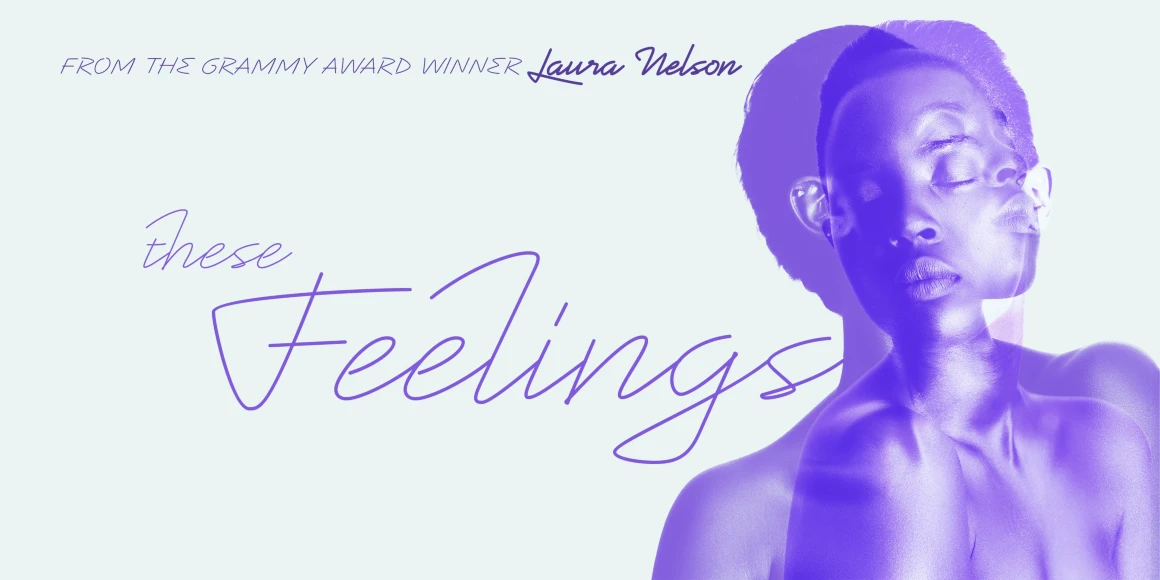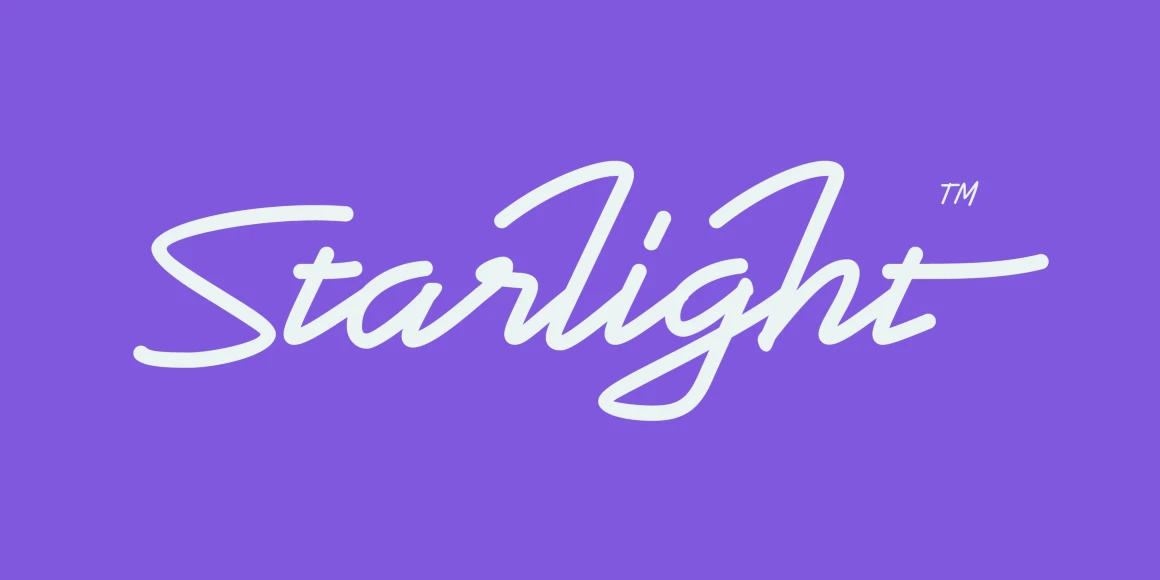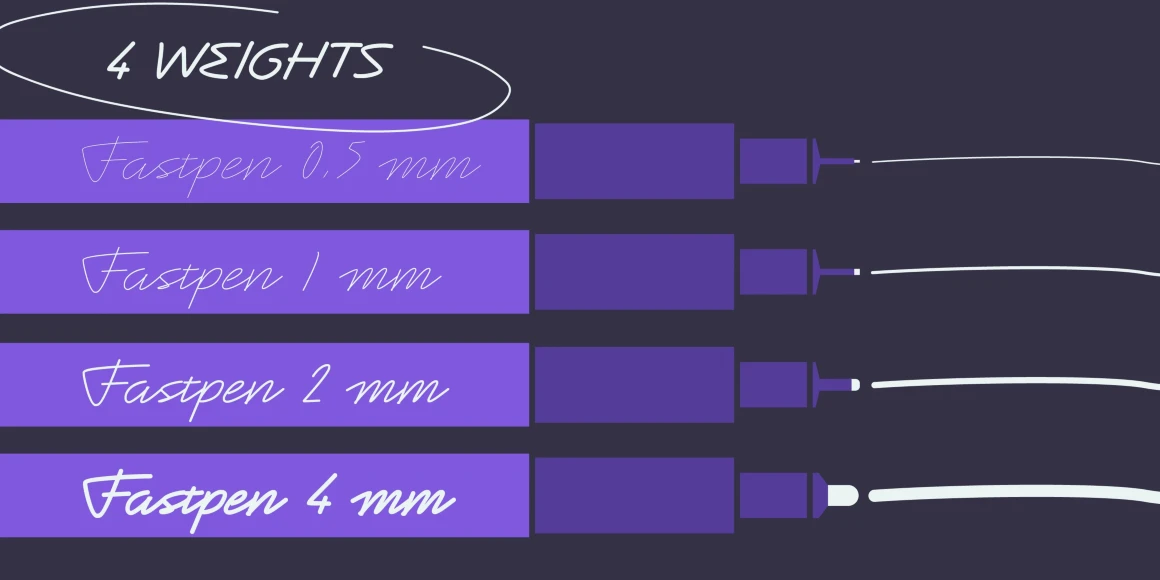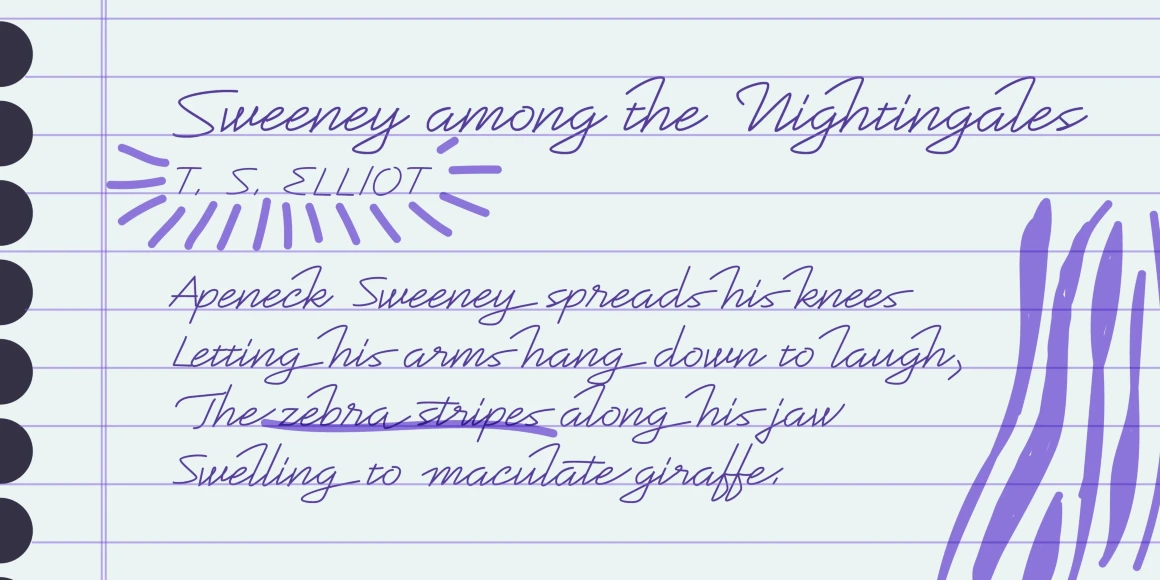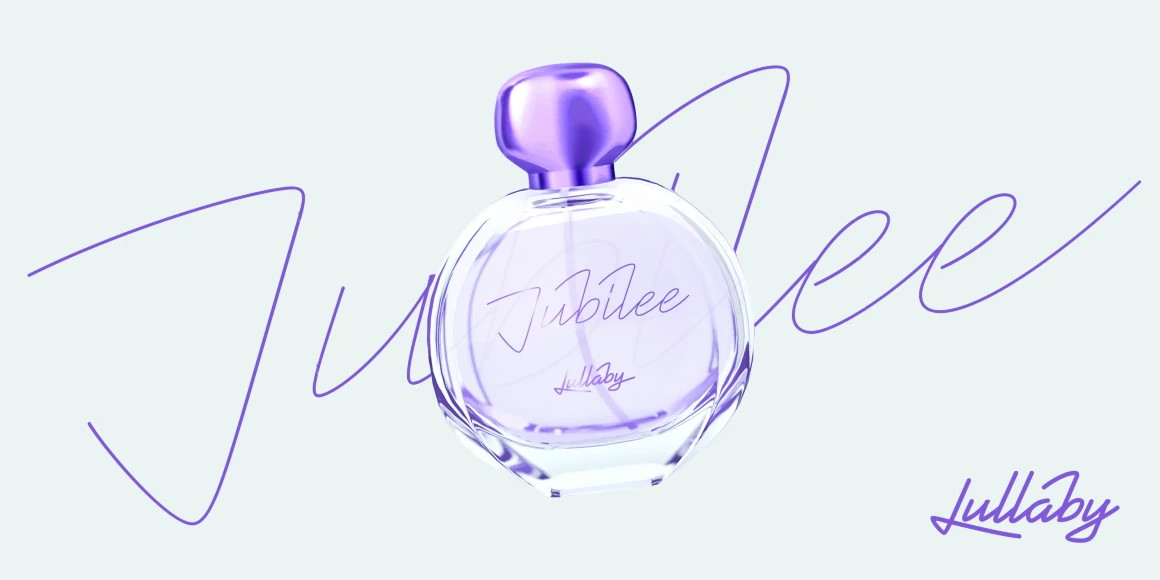
Fastpen
From &DISCOVER
Fastpen is a script typeface based on fast, handwritten pen strokes. It has 4 weights, each emulating a pen/brush thickness (0.5mm, 1mm, 2mm, and 4mm). It is meant to create a realistic handwritten look with many contextual alternates that capture the quirks and character of handwriting. Energetic, joyful, with long elegant ascenders and extravagant swash capitals. Each thickness can give slightly different feelings, from the thinnest (0.5mm) more delicate to the most impactful (4mm).
Designed by Natanael Gama